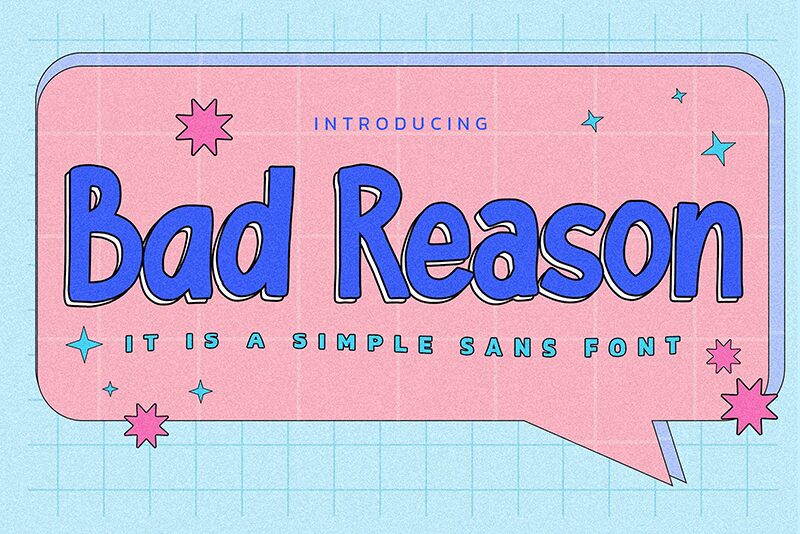
Bad Reason
Bad Reason by Gassstype emerges as a playful disruptor in the realm of display fonts. This semi-light, cartoon-style sans serif dances with a modern flair and dramatic casualness that's hard to overlook. Crafted for creators who covet a splash of spontaneity and authenticity in their work, Bad Reason excels across an array of applications-from the whimsy of children's book titles to the eye-catching allure of brand packaging.
With its textured finish and natural charm, this font infuses projects with an organic feel that digital designs often lack. The availability of Alternate glyphs via OpenType panel further elevates its versatility, allowing designers to tailor characters for that perfect fit within their creative vision.
Whether you're designing greeting cards imbued with personality or fashioning distinctive labels that stand out on shelves, Bad Reason promises to deliver an artful impact that is both contemporary and refreshingly fun.